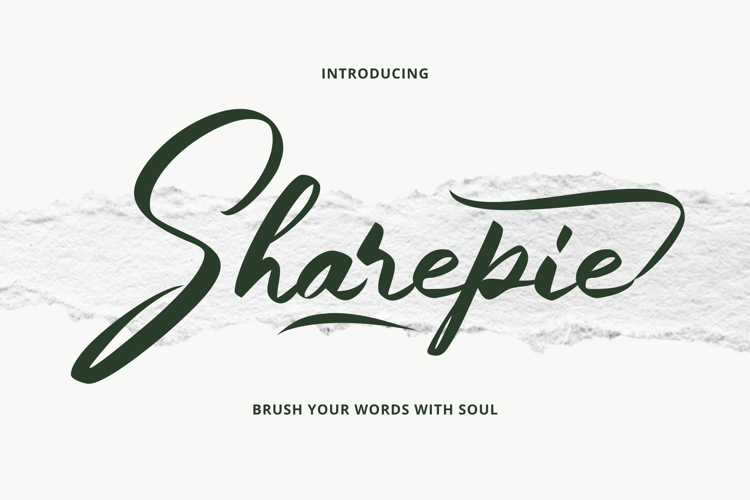
Sharepie
Sharepie is a modern brush script font with bold strokes, clean curves, and a confident edge. Inspired by handwritten calligraphy, it blends expressive movement with stylish clarity—perfect for branding, packaging, invitations, and social content.
Add a modern touch to your next design with Sharepie.